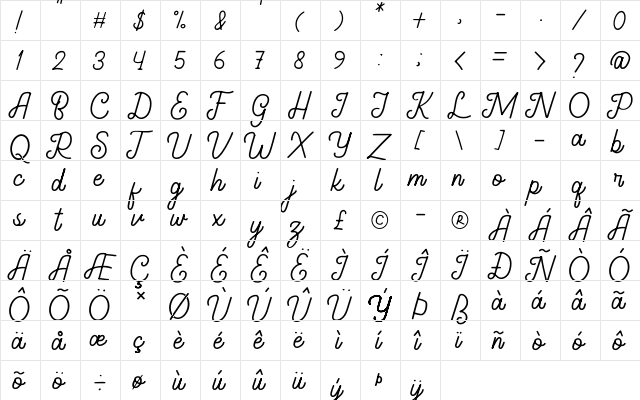
Gathenbury Typeface Regular
Design Context for Gathenbury Typeface Typeface
Gathenbury Typeface is a composed and adaptable typeface that performs quietly and consistently across a wide range of design contexts.